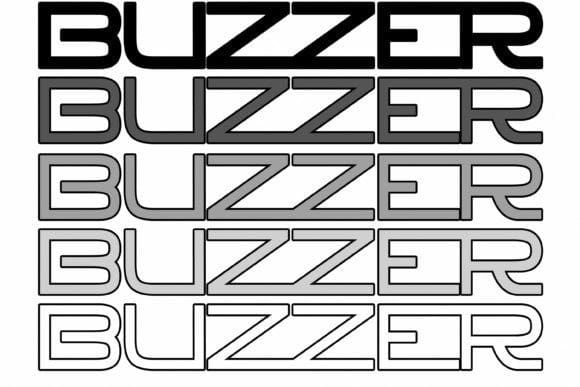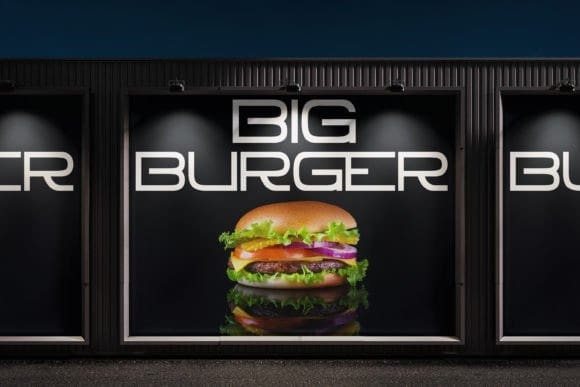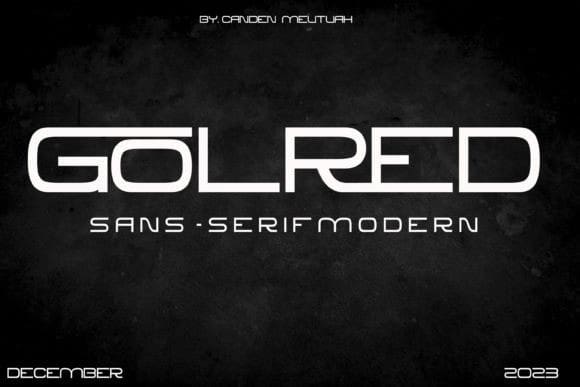
Golred Font
Golred Font is a simple, minimalist, and neat sans serif font. It can be easily adapted to a very large range of projects, such as advertising, titles, blogs, logos, branding, invitations, business cards, and more!
So add it to your creative ideas and watch how it makes it stand out!